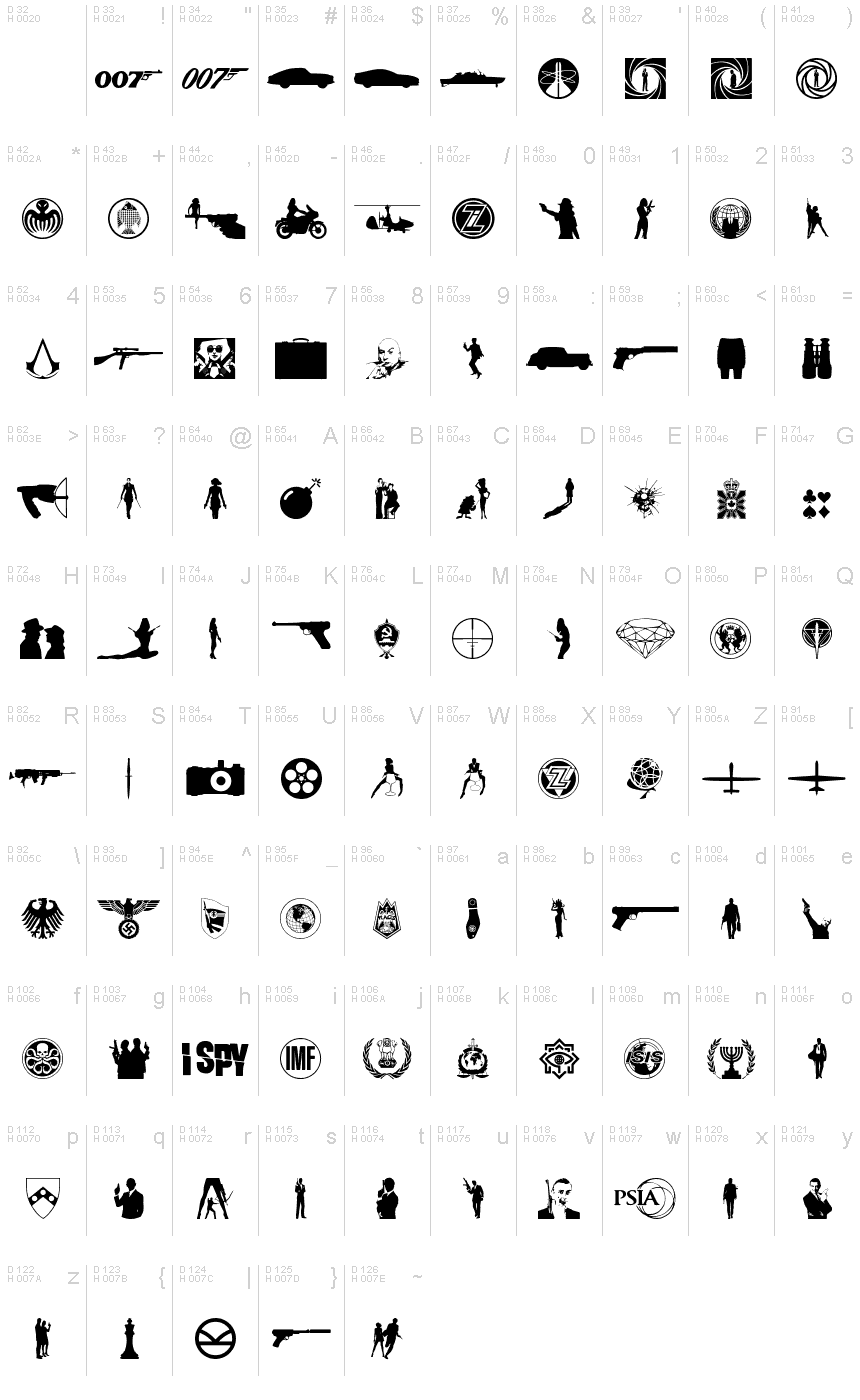
Spycon
The Spycons font includes more than 200 icons, logos, silhouettes, and symbols related to historic and fictional espionage, secret agents, and spying. This is a large font file.